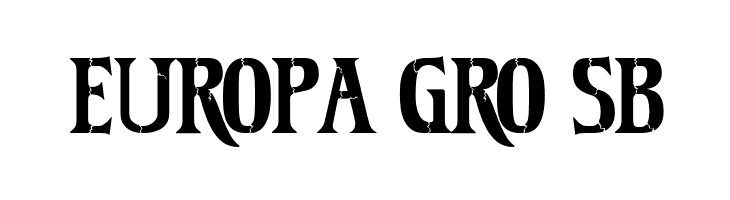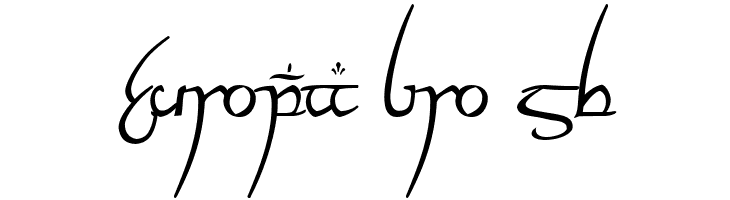
A bold, angular font with a dramatic and aggressive style.
A bold, dripping font with a spooky, horror-themed style.
A decorative and mystical font with flowing lines and elegant curves.
A bold, shadowed font with a graffiti-like, hand-drawn style.
A bold, hand-drawn font with a rugged, graffiti-inspired style.
A bold, hand-drawn font with a jagged, horror-inspired style.
A bold, dripping font perfect for horror and Halloween themes.
A bold, futuristic font with geometric and angular letterforms.
A bold, gothic-inspired font with sharp serifs and a dramatic flair.
A bold, shadowed font with a three-dimensional effect.
A horror-themed font with a dripping, blood-like effect and sharp serifs.
A clean, modern font with clear, consistent characters and Japanese katakana elements.
A bold, gothic-inspired font with sharp edges and distinct serifs.
A decorative script font with a fantasy and mystical style.
A bold, abstract font with tribal-inspired curves and angles.
A horror-themed font with a dripping, blood-like effect and sharp serifs.
A bold, edgy font with dynamic, uneven strokes and a strong visual impact.
A bold, angular font with edgy, dramatic elements.
A bold, dripping font with a melting effect, ideal for horror themes.
A modern, geometric font with unique character designs and a hint of retro charm.
A geometric, angular font with a futuristic and abstract design.
A bold, dripping font perfect for horror-themed designs.